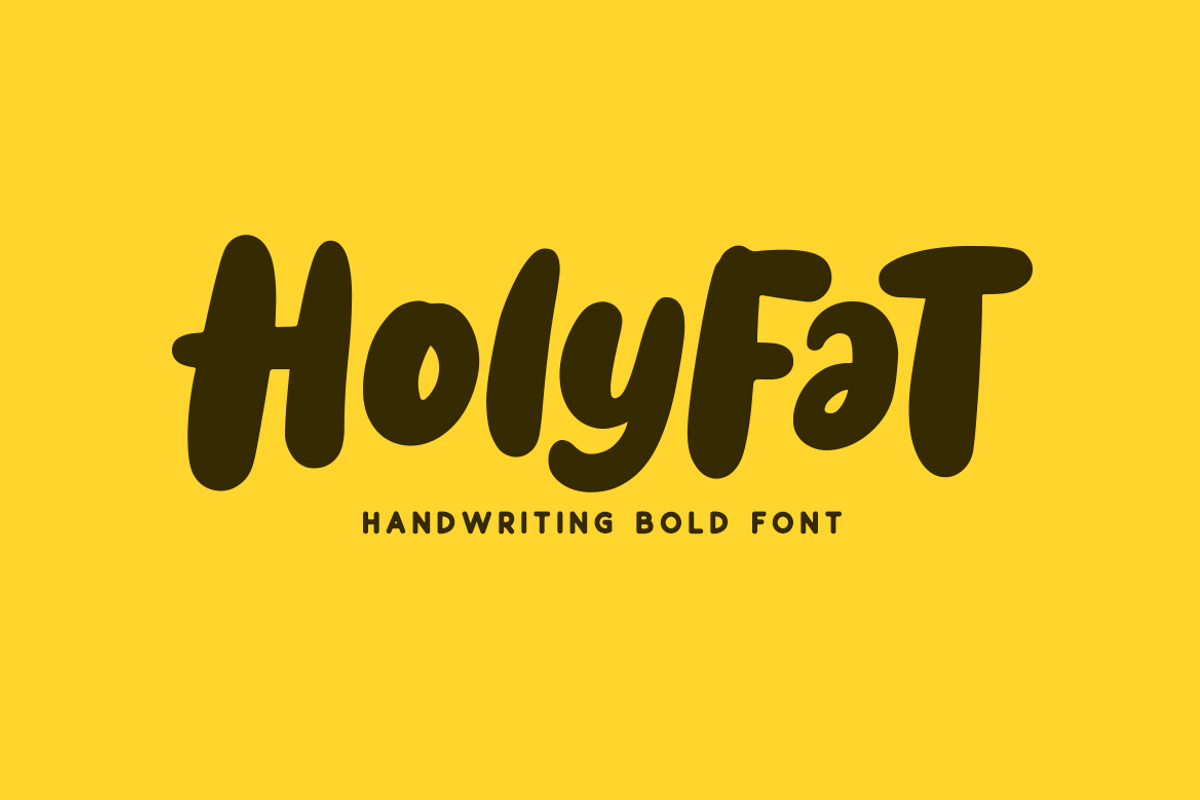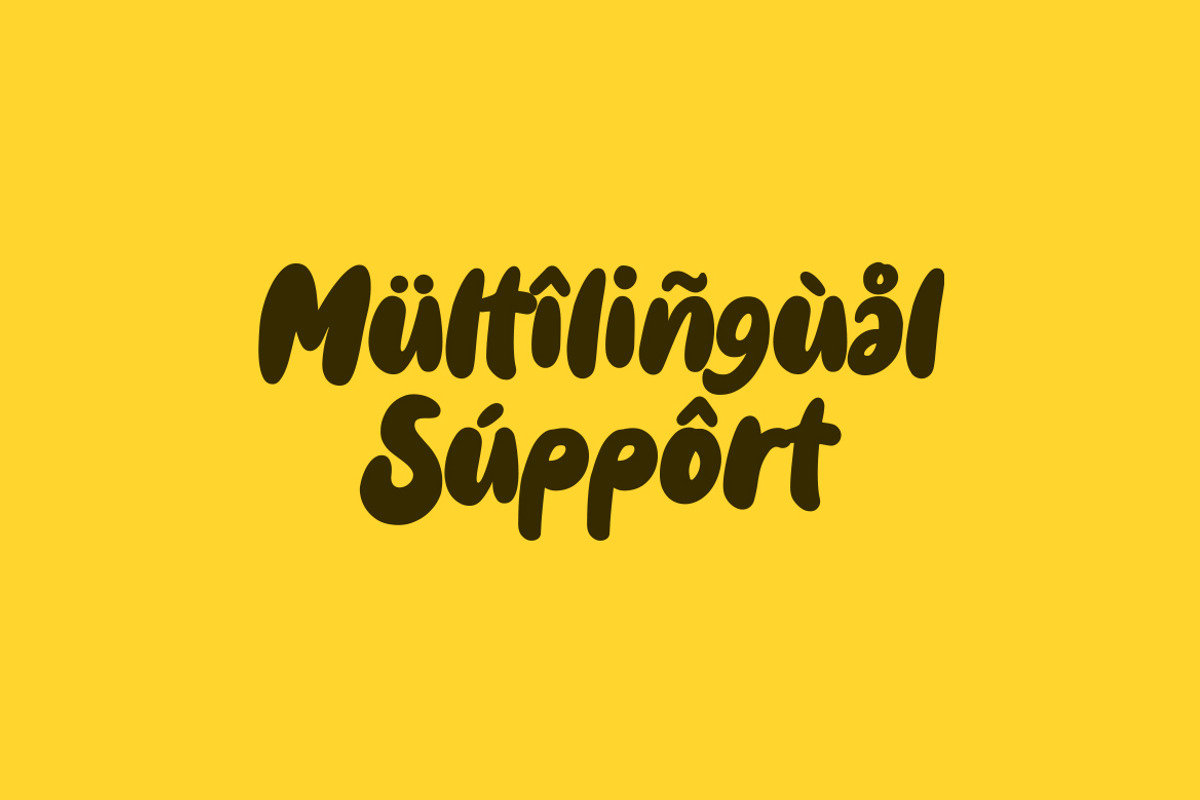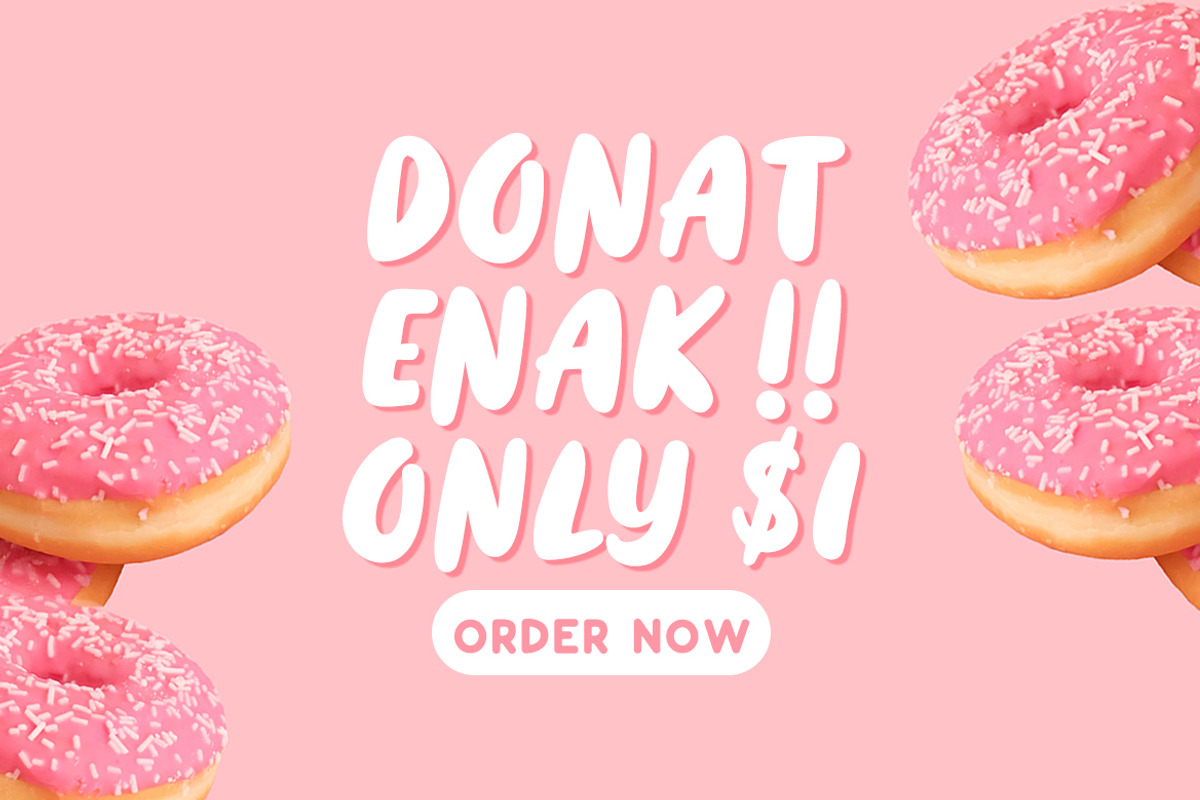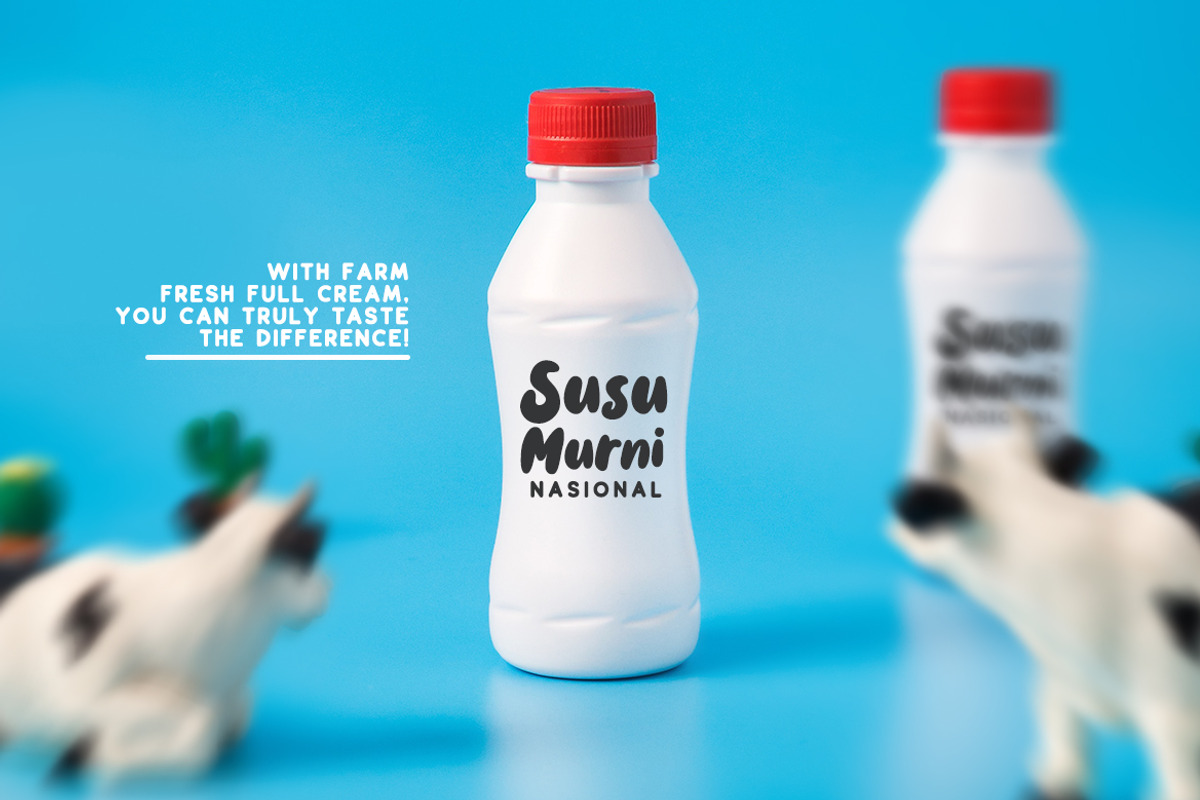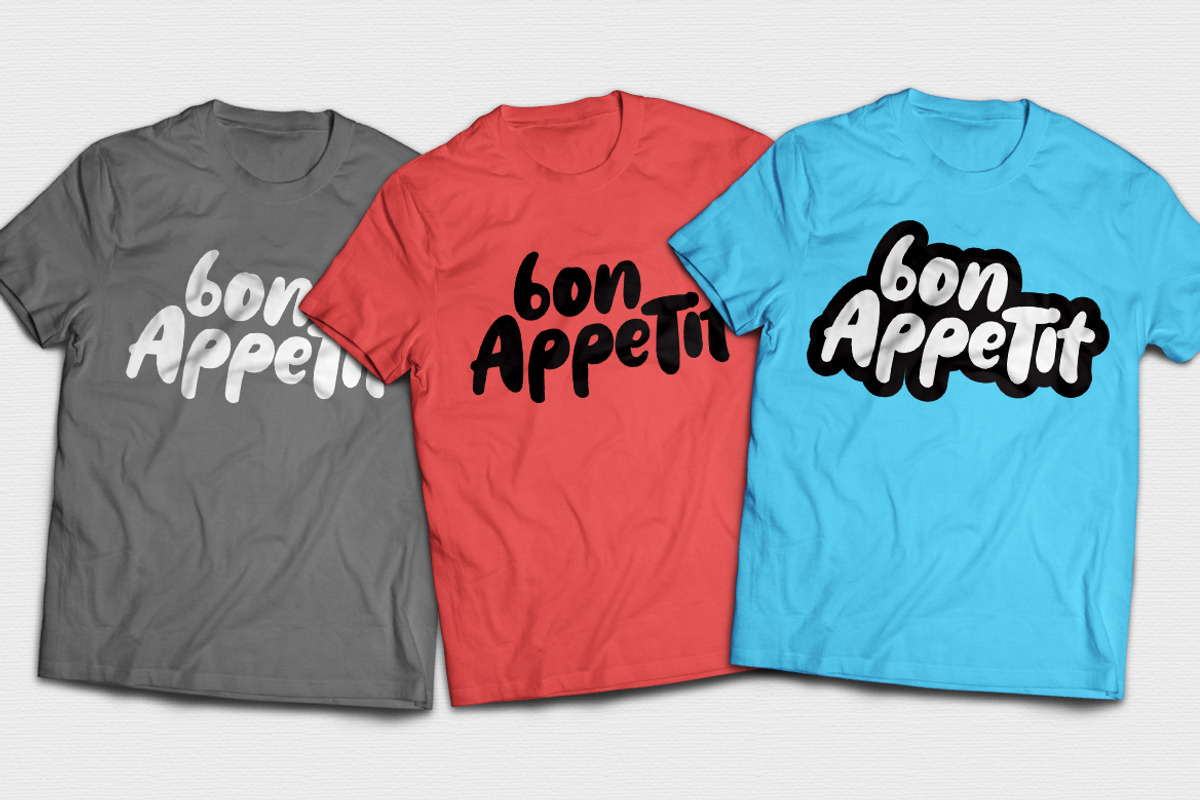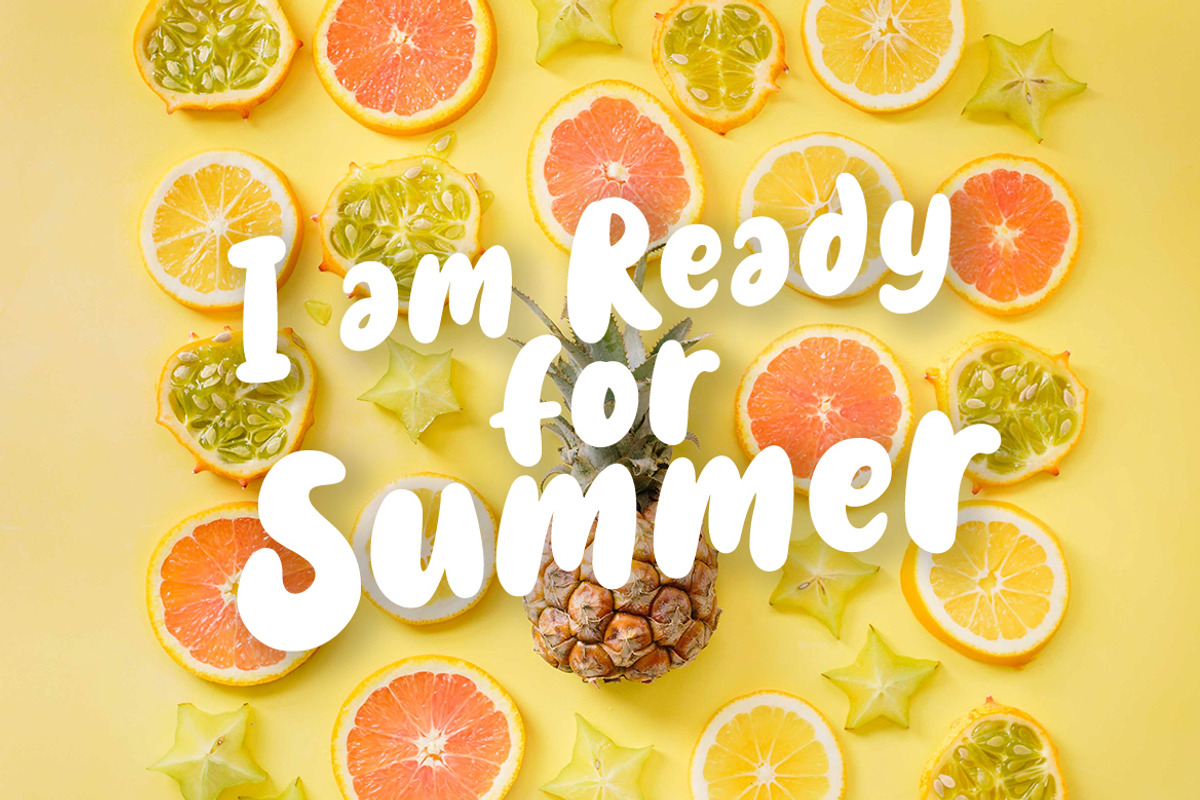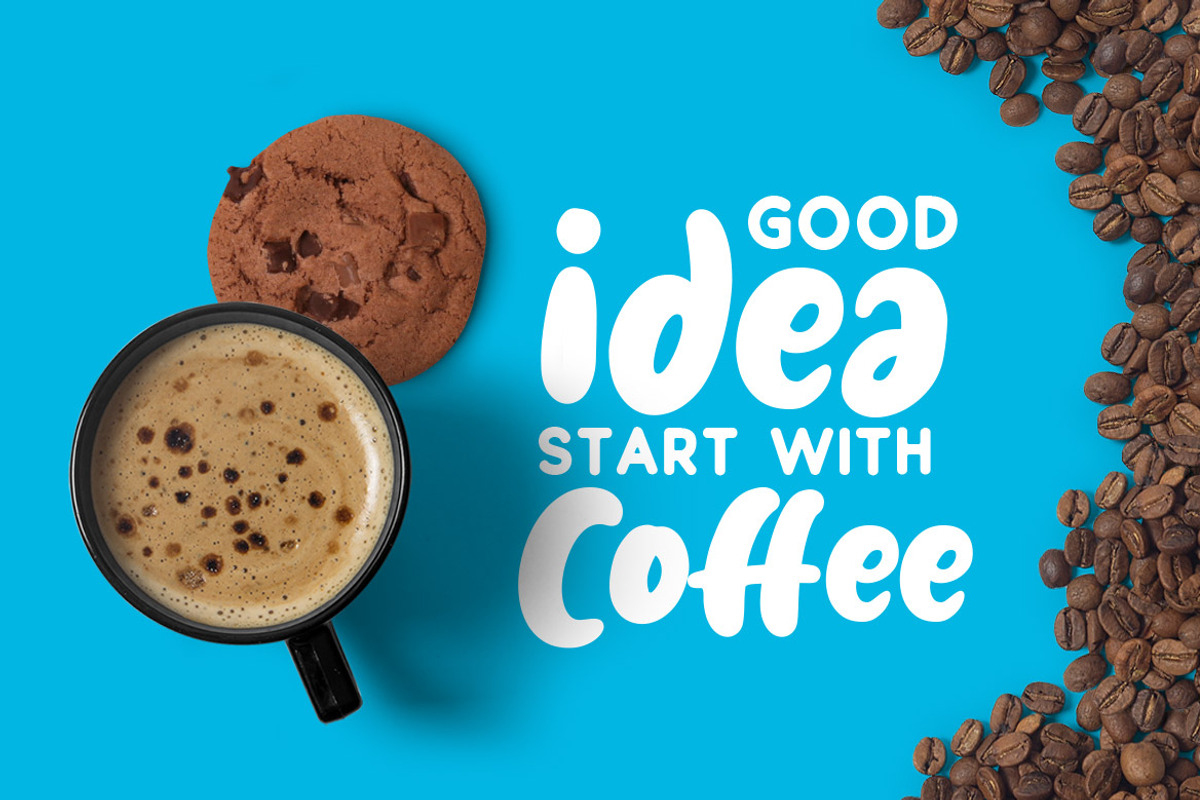
Holyfat
New Update - Added more multilingual support.
Introducing Hollyfat handwriting bold font, a new font with the style of the fun bounce and bold. Which is you can create a cute and fresh design.
Hollyfat is very suitable for logo design, kids t-shirts, birthday cards, cover book, magazine, flyer, quotes, packaging and of course much more.
This font is comes in uppercase, lowercase, punctuations, symbols & numerals, ligatures, etc.